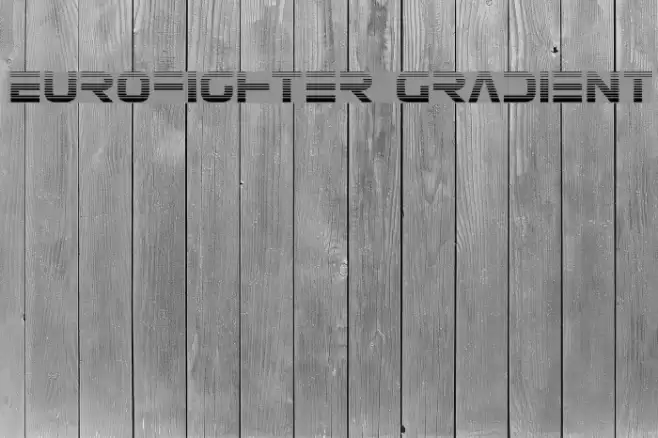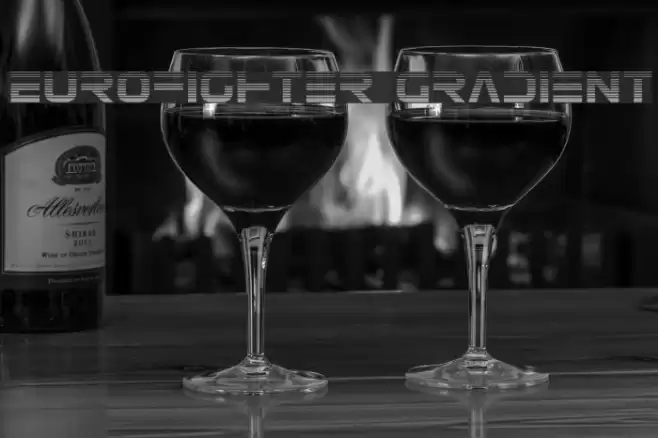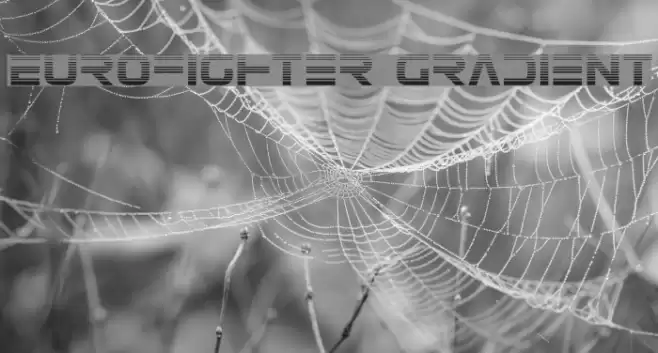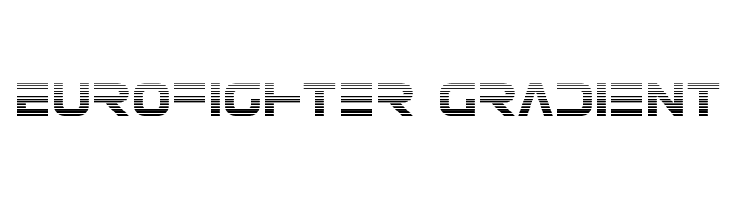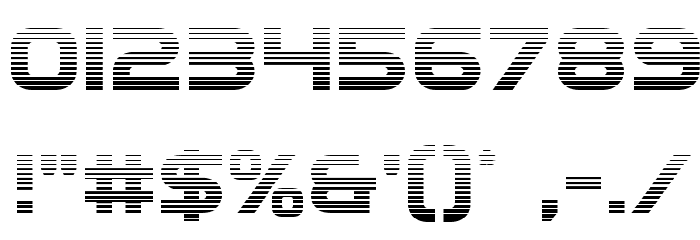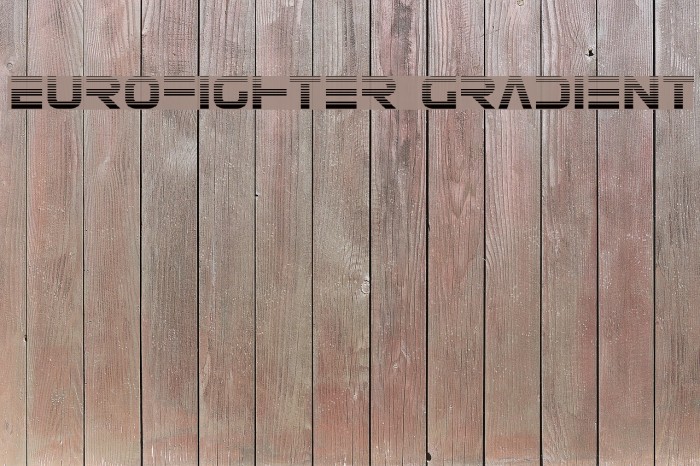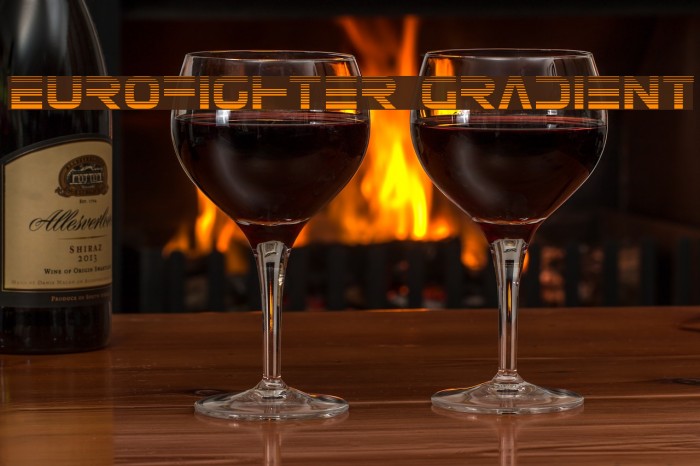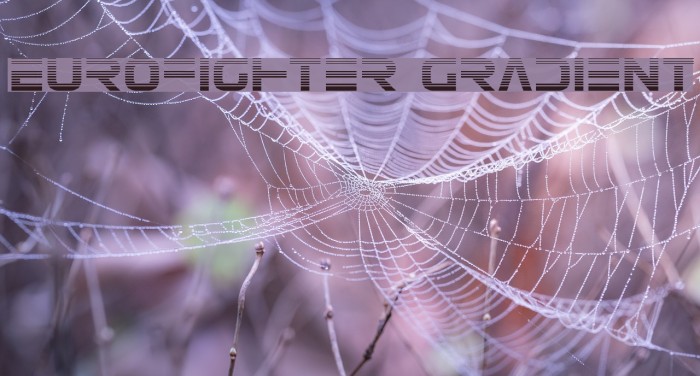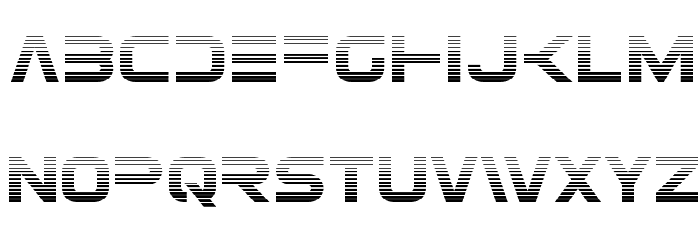
Eurofighter Gradient Font
Eurofighter Gradient Description
This font features a distinctive, futuristic design with a gradient effect created by horizontal lines that form each character. The uppercase and lowercase letters, as well as numbers and special characters, maintain a consistent style that emphasizes a modern, digital aesthetic. The characters are bold and geometric, with sharp angles and clean lines that give a sense of speed and technology. The gradient effect adds depth and dimension, making it suitable for eye-catching designs.
A bold, futuristic font with a gradient effect created by horizontal lines from Uncategorized fonts.
- Proposed Projects: Ideal for technology branding, sci-fi themed projects, video game titles, and modern advertising.